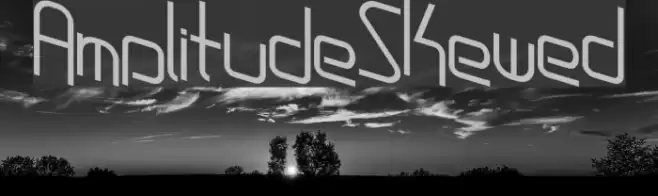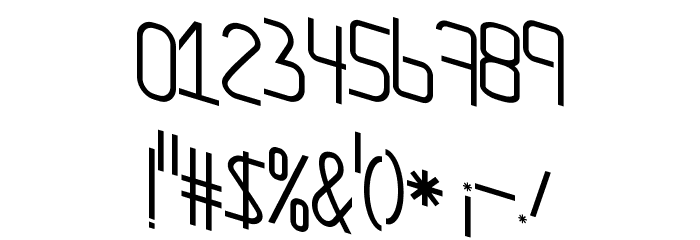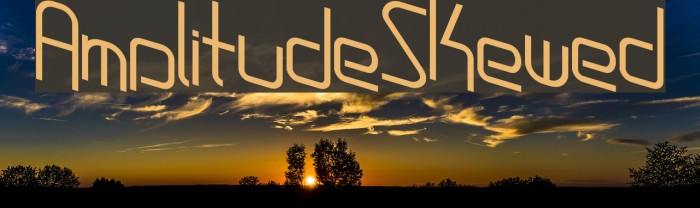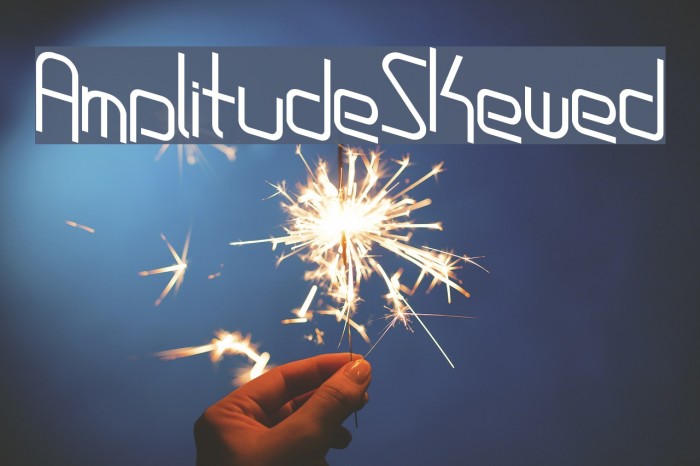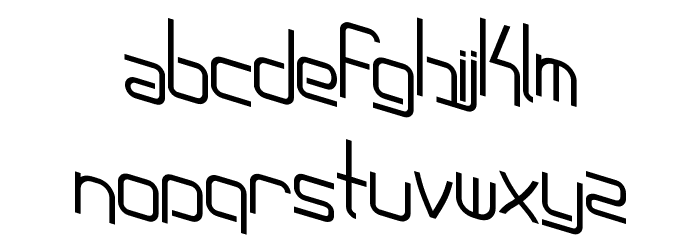
AmplitudeSkewed Font
AmplitudeSkewed Description
This font exhibits a unique, futuristic style with a skewed, angular design that gives it a dynamic and energetic appearance. The characters are constructed with straight lines and sharp angles, creating a sense of movement and modernity. The uppercase and lowercase letters maintain a consistent geometric form, while the numerals and special characters complement the overall aesthetic. The font's distinctiveness lies in its skewed orientation, which adds a layer of visual interest and makes it stand out in any design. Its clean lines and open spacing ensure readability, despite its unconventional style.
A futuristic, skewed font with angular, geometric characters from Uncategorized fonts.
- Proposed Projects: Ideal for sci-fi themed projects, tech branding, modern posters, and innovative product packaging.